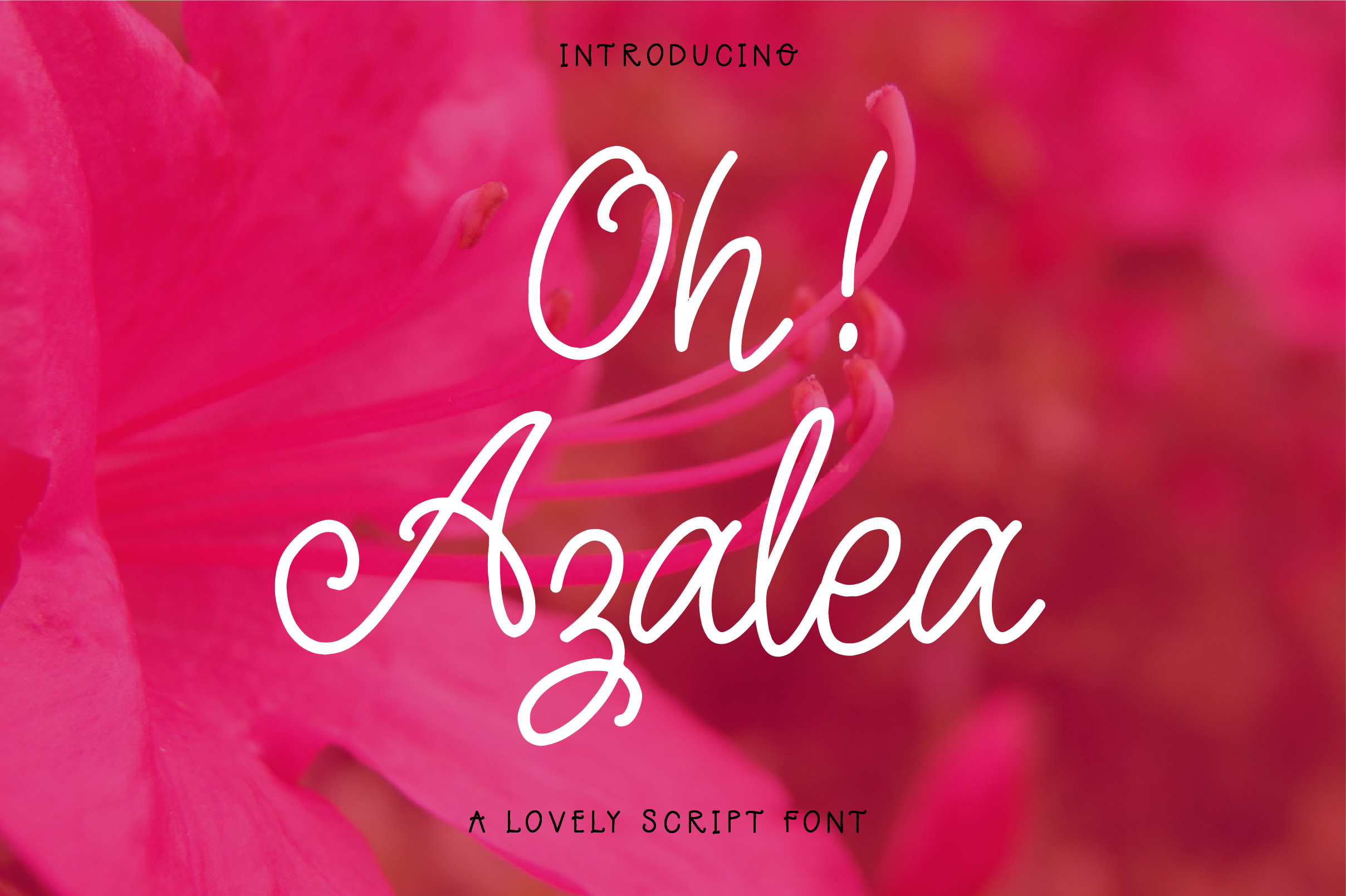
Oh Azalea Script Font
Meet Oh! Azalea, a super pretty signature style font that will add class and charm to all your design projects.
A simple yet elegant font, Oh! Azalea is perfect for creating a handwritten look and is ideal for logos, business cards, packaging projects, various wedding design projects, photo overlays and so much more!